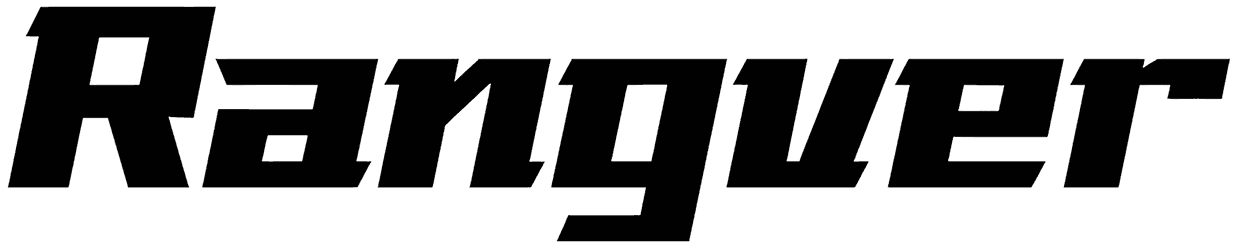
Rangver Font
Creating a feeling of being pretty difficult to ignore, Rangver font brings us very rigid letters with strong thicknesses. This racing font is a great option to be used for different brands’ logos, mockup packaging, and…
Creating a feeling of being pretty difficult to ignore, Rangver font brings us very rigid letters with strong thicknesses. This racing font is a great option to be used for different brands’ logos, mockup packaging, and industrial catalogs. A sci-fi font that should not be missing in your collection. Our library provides you with a boatload of options.